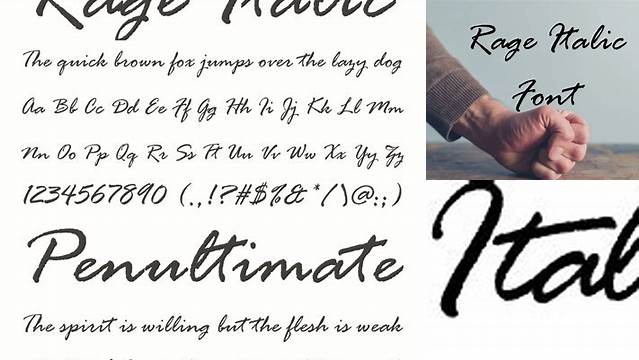
Hey guys, if you're on the hunt for a font that screams attitude and style, then you've probably stumbled upon the Rage Italic STD font. It's a real head-turner, with its edgy, slanted design that can instantly give your projects a dose of personality. This guide is all about helping you snag this awesome font for free and making the most of it in your design work. Let's dive in and see how you can get your hands on the Rage Italic STD font and start using it to create some seriously cool stuff!
So, what's the big deal about Rage Italic STD font? Well, it's more than just a font; it's a statement. Think of it as the rebel of the font world. Its italicized form gives it a dynamic, almost rebellious feel, making it perfect for designs that need to grab attention. Whether you're working on a poster, a website, or a social media graphic, Rage Italic STD can help you make a bold impression. The font's unique characteristics and the feeling it evokes can be a game-changer in your design toolkit. Many designers adore it because of its distinctive flair.
Design Tips and Best Practices with Rage Italic STD
Using the Rage Italic STD font effectively is about more than just typing with it; it's about understanding how to incorporate it into your designs to maximize its impact. The best use of the Rage Italic STD font is in headings, titles, and short, impactful phrases. Its bold and italicized style is perfect for grabbing attention, but it can become hard to read if used in large blocks of text. Keep the font size in mind. A good rule of thumb is to use it for headings or short text blocks, but not for body text. This will ensure your message is clear and easy to read. Play around with kerning and tracking. These are the spaces between the letters and words. Adjusting these can help to improve the visual appeal and readability of your text. Consider pairing Rage Italic STD font with a more neutral font for body text. This contrast can create a balanced and visually appealing design. The bold statement the font makes is great, but too much of it can be a little overwhelming. Complementing it with a more readable font will make your design more enjoyable for the viewer. Using the right contrast will make your work look professional.
Think about the overall mood and message you want to convey. The font's edgy style is perfect for projects that need to feel rebellious, modern, or dynamic. Consider how the font fits with the colors and images you're using. Does it complement the visual elements, or does it clash? The right combination of fonts, colors, and images can help you create designs that really pop. Always preview your design in different contexts. What looks good on your computer screen might not translate well on a printed poster or a mobile device. Test it out, get feedback, and be prepared to make adjustments. The goal is to use the Rage Italic STD font to make your design stand out. With a little bit of planning and experimentation, this font can be a real game-changer.
Conclusion: Unleash Your Creativity
Wrapping things up, the Rage Italic STD font is a fantastic choice for designers looking to make a bold statement. With its unique style and easy availability, it can really elevate your projects. Remember to always download fonts from safe sources, check the licensing terms, and experiment with different styles and uses. Use this font to create some amazing designs. Make your designs truly stand out! The most important thing is to have fun and explore what this font can do. So go out there and get creative! The Rage Italic STD font can be a powerful tool in your design arsenal. Get ready to create some awesome designs!